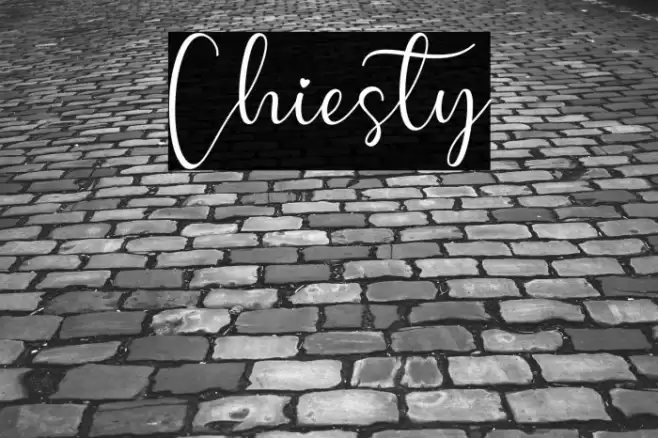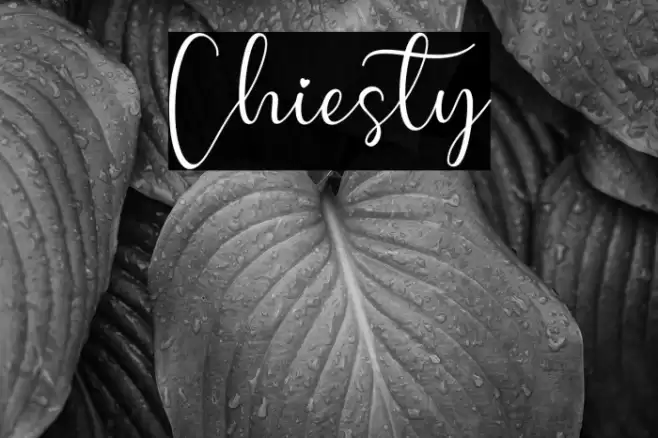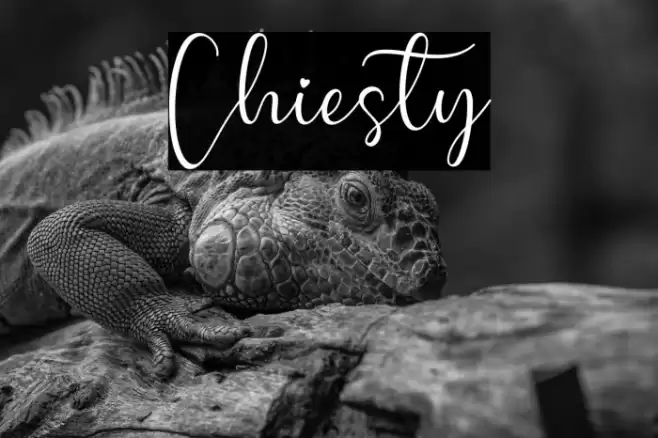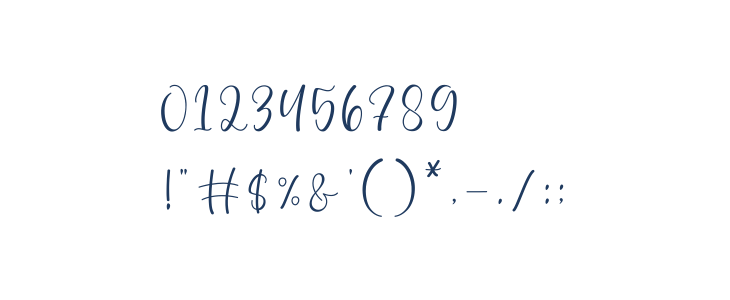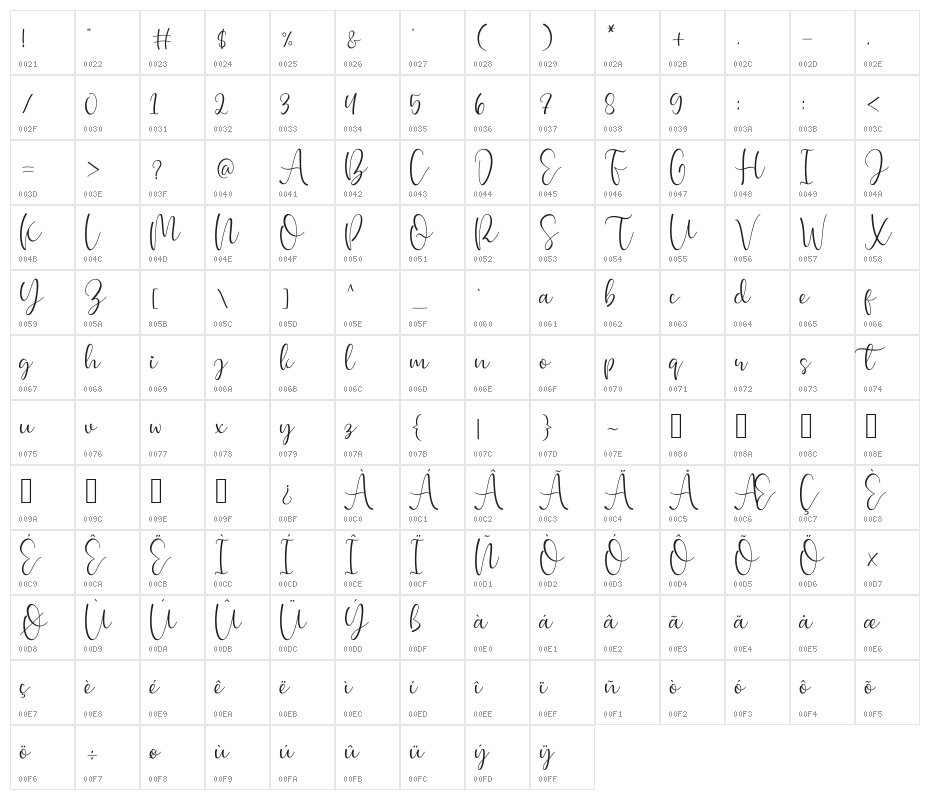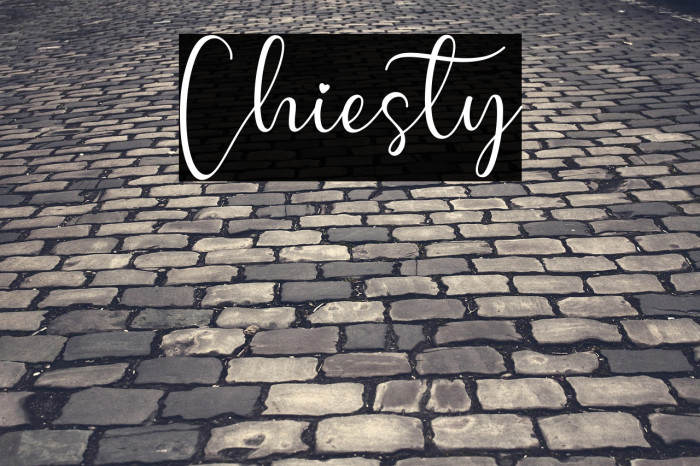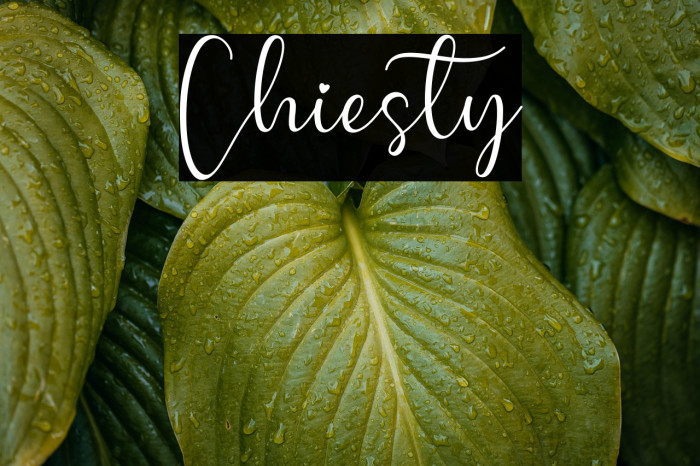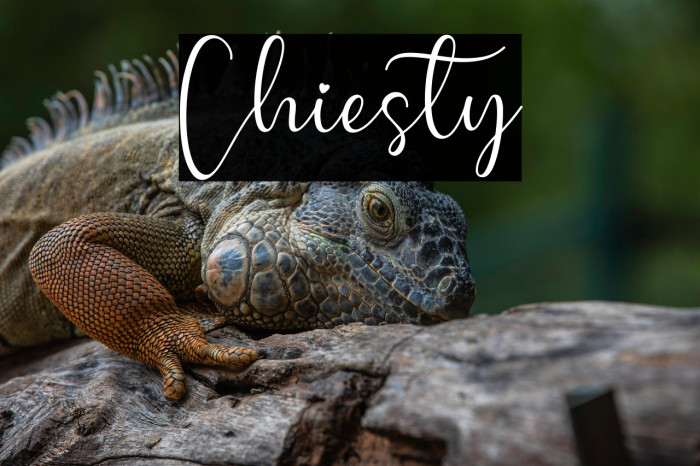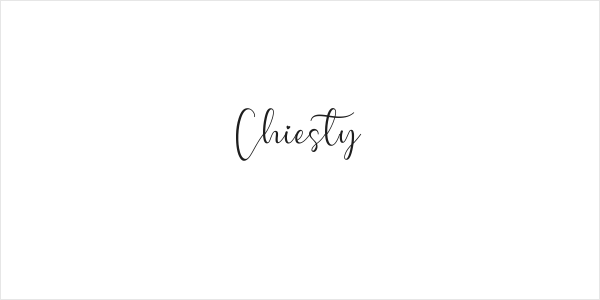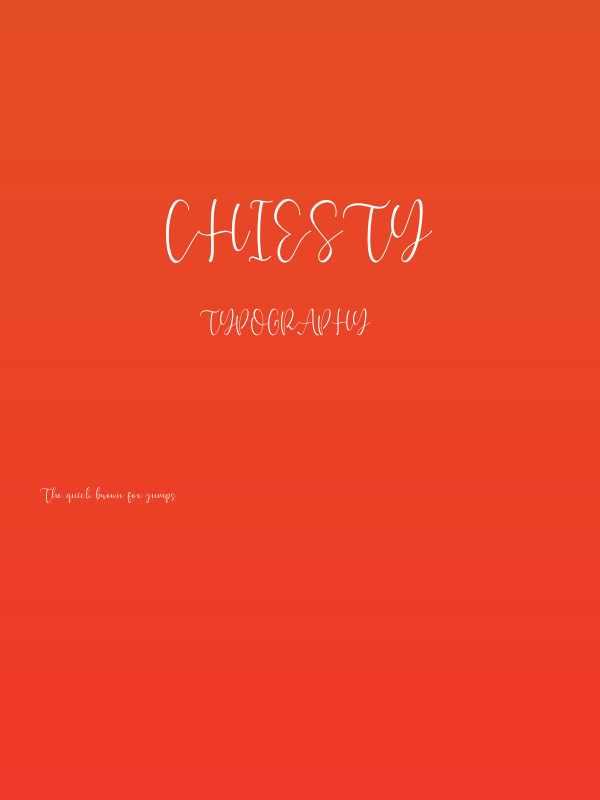
Chiesty Font
Chiesty Description
This font exudes a charming and elegant handwritten style, characterized by its fluid and graceful strokes. The uppercase letters are tall and slightly narrow, with a whimsical flair that adds a touch of sophistication. The lowercase letters maintain a consistent flow, with some letters featuring loops and curls that enhance its decorative appeal. The numerals are clear and legible, matching the overall aesthetic of the font. Special characters are thoughtfully designed, complementing the script's artistic nature. This font is perfect for projects that require a personal and stylish touch, such as invitations, greeting cards, and branding materials.
A charming handwritten script with fluid, graceful strokes and decorative flair from Regular fonts.
- Font: Chiesty